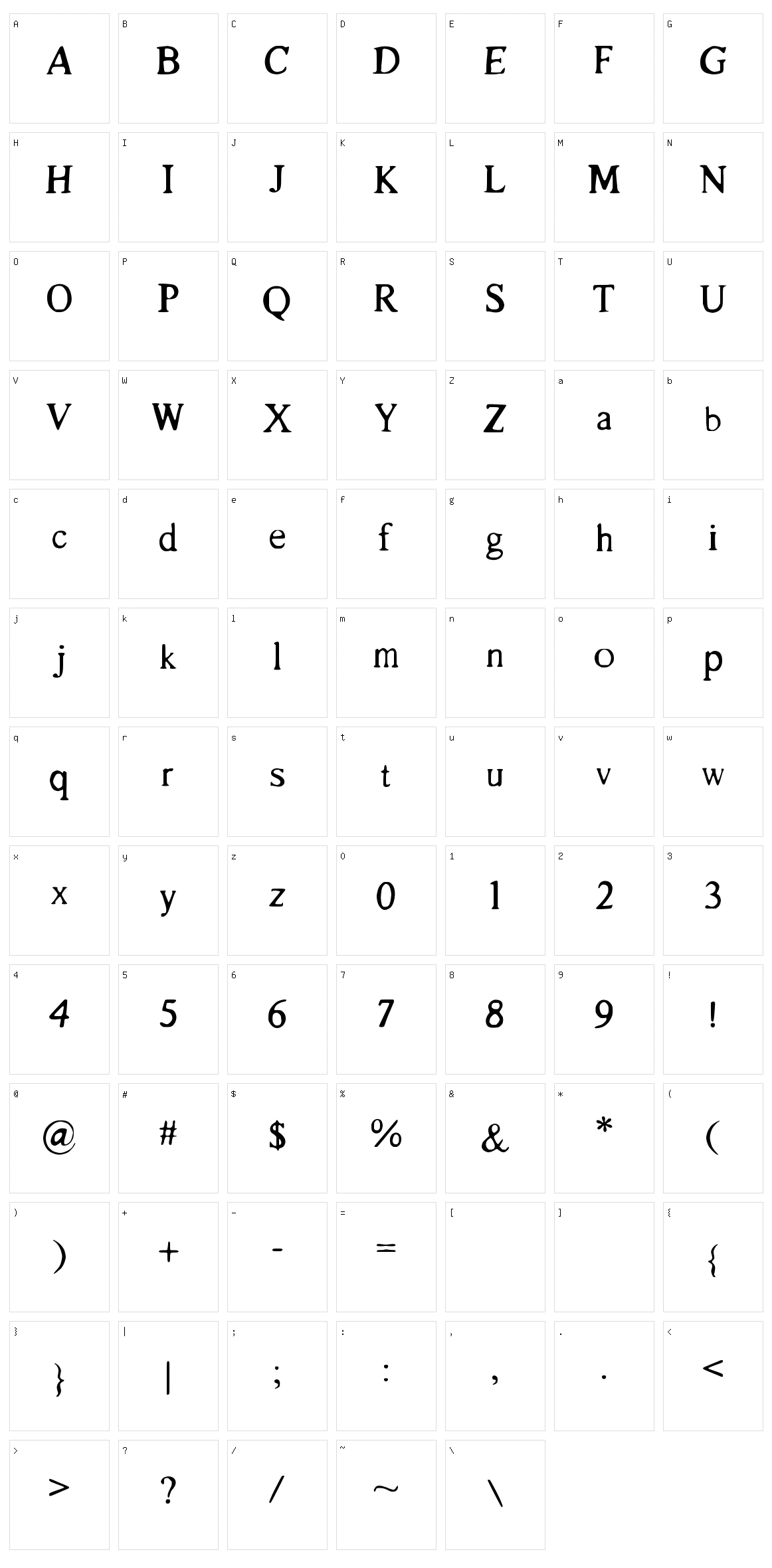
The free font Le Bossu is carefully designed by Caesar, showcasing a thoughtful balance of creativity and usability and falls under the Eroded font style. When you download the ZIP file, it contains only 17.4 KB of font files, making it lightweight and quick to download. Please review the license details below to understand permitted usage and distribution rights. If license information is not available, we recommend using this font for personal projects only or contacting the author directly for commercial usage permissions.